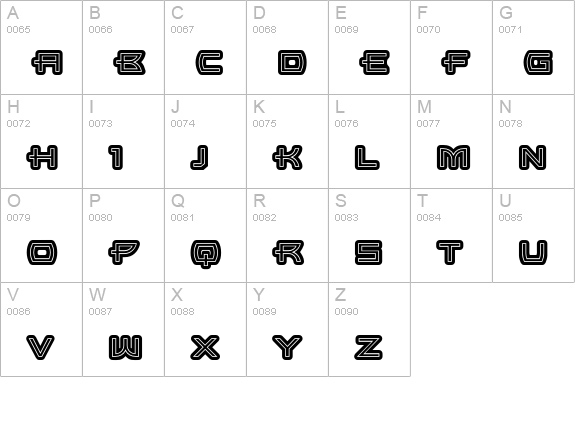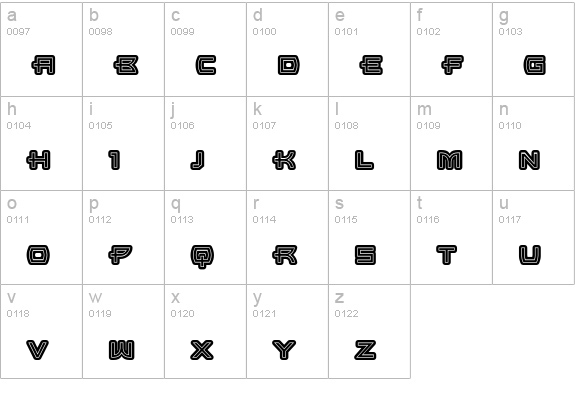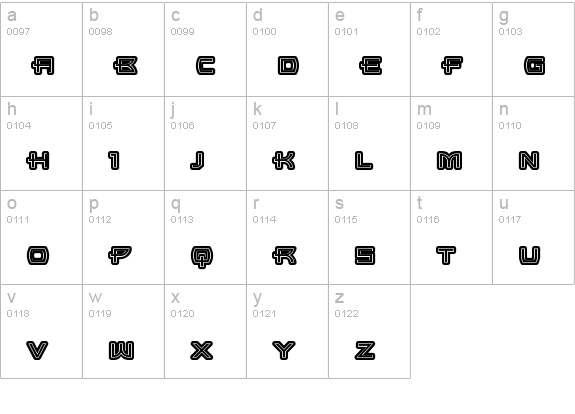
Introducing UltraBronzo-Inline, a stunning font that effortlessly combines contemporary aesthetics with a touch of retro charm. This font is perfect for designers, artists, and creatives seeking to add a unique and eye-catching element to their projects. With its sleek and clean lines, UltraBronzo-Inline effortlessly captures attention and adds a modern edge to any design. The finely crafted letterforms exude a sense of elegance and sophistication, making it ideal for a wide range of applications, from branding and logo design to editorial layouts and packaging. What sets UltraBronzo-Inline apart is its versatility. Whether you're aiming for a bold and impactful look or a subtle and refined touch, this font can adapt to your creative vision. Its balanced proportions and carefully balanced strokes ensure legibility without compromising on style. And the best part? UltraBronzo-Inline is free! Yes, you heard it right. This exceptional font is freely available to download at FontsMarket.com. Now you can enhance your designs with a high-quality font without breaking the bank. So why wait? Unleash your creativity and let UltraBronzo-Inline elevate your designs to new heights. Download it today and experience the freedom of artistic expression that this font brings.